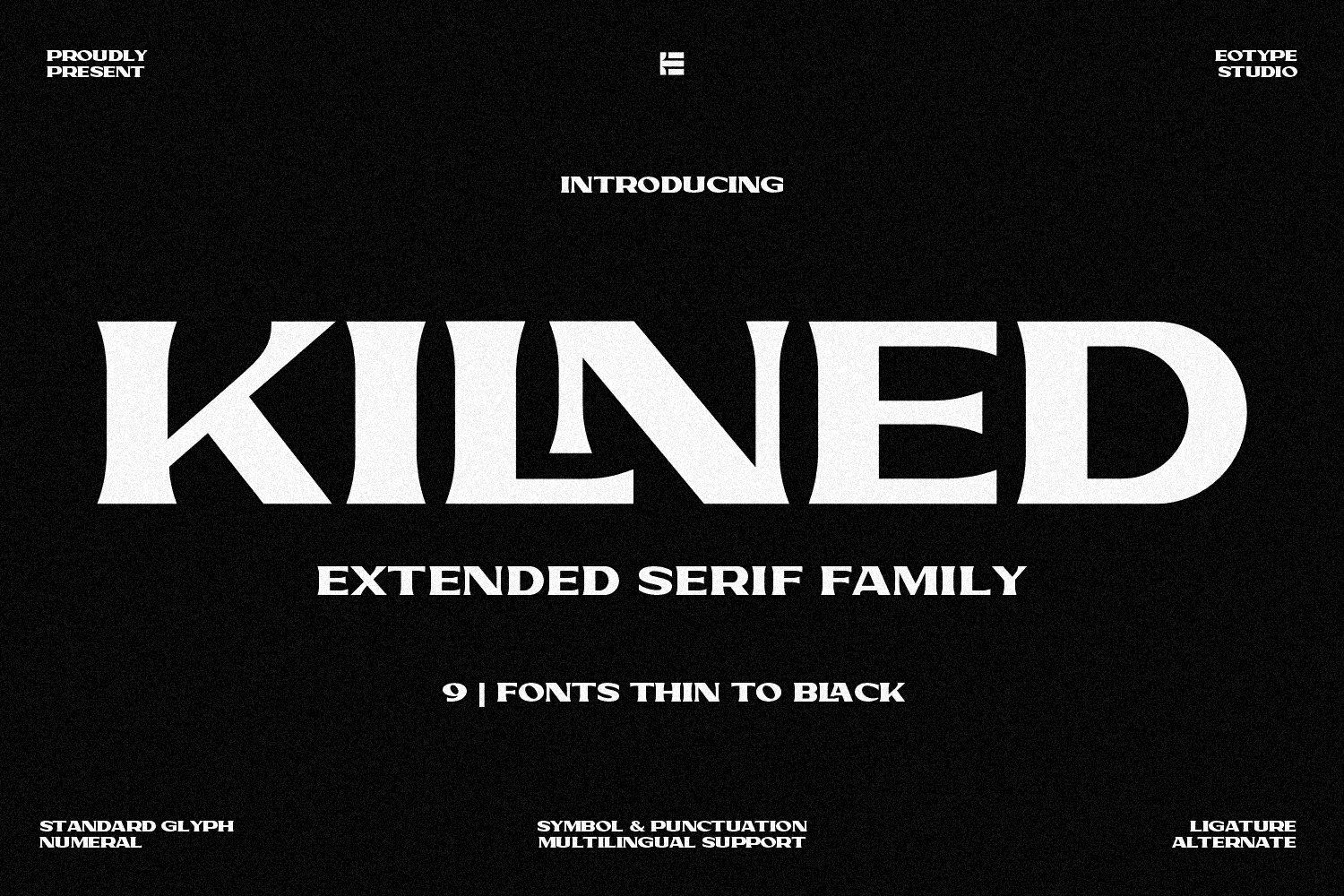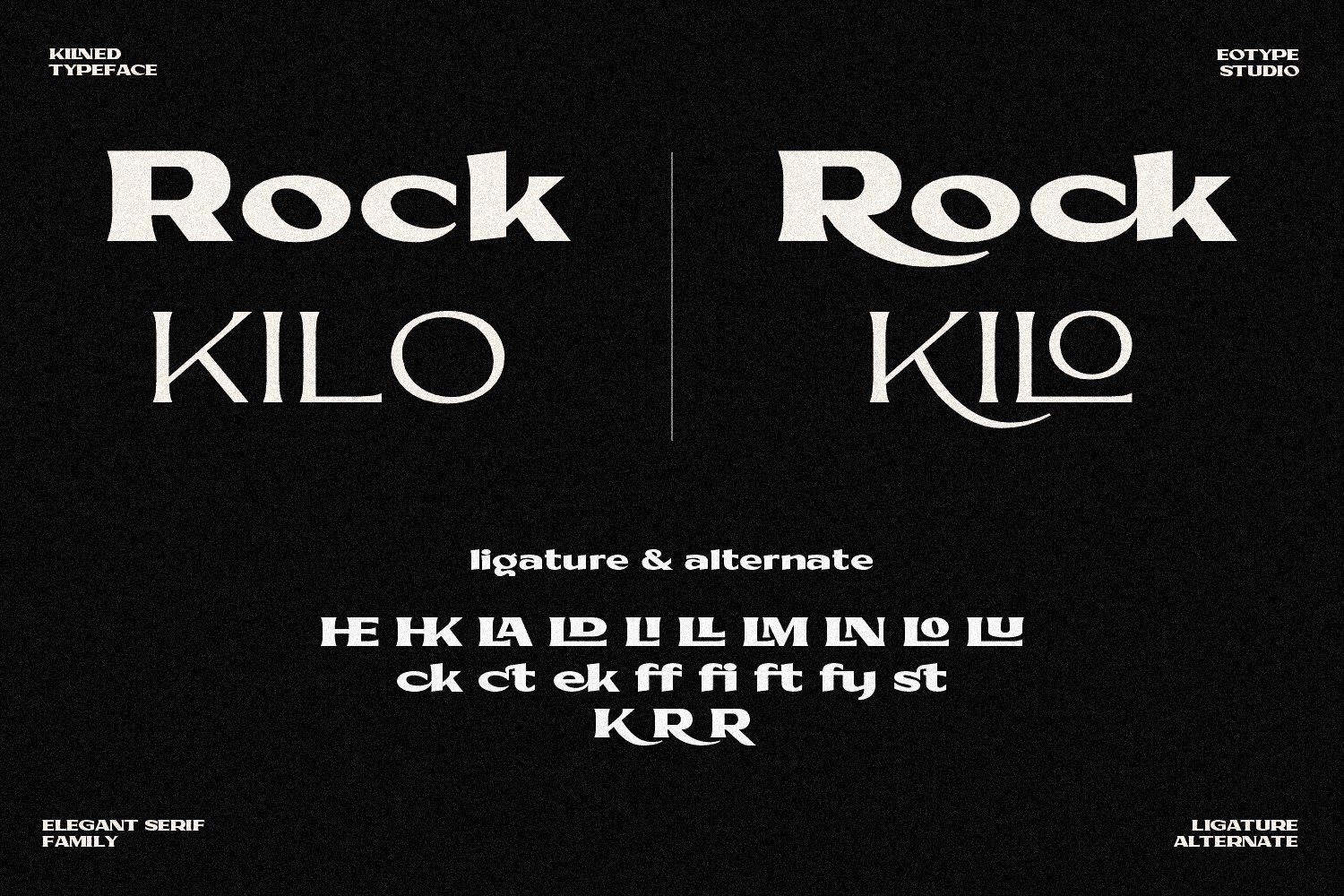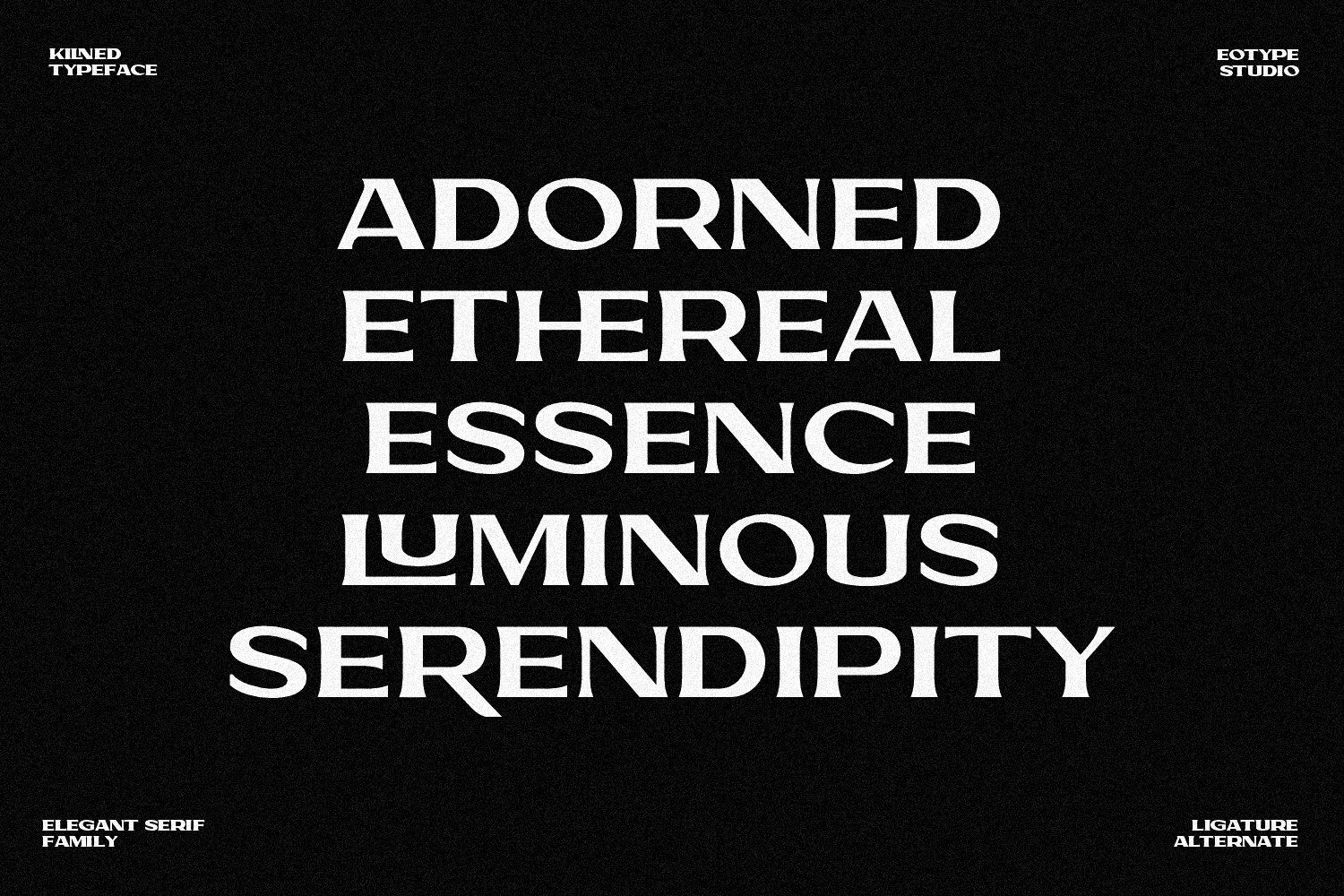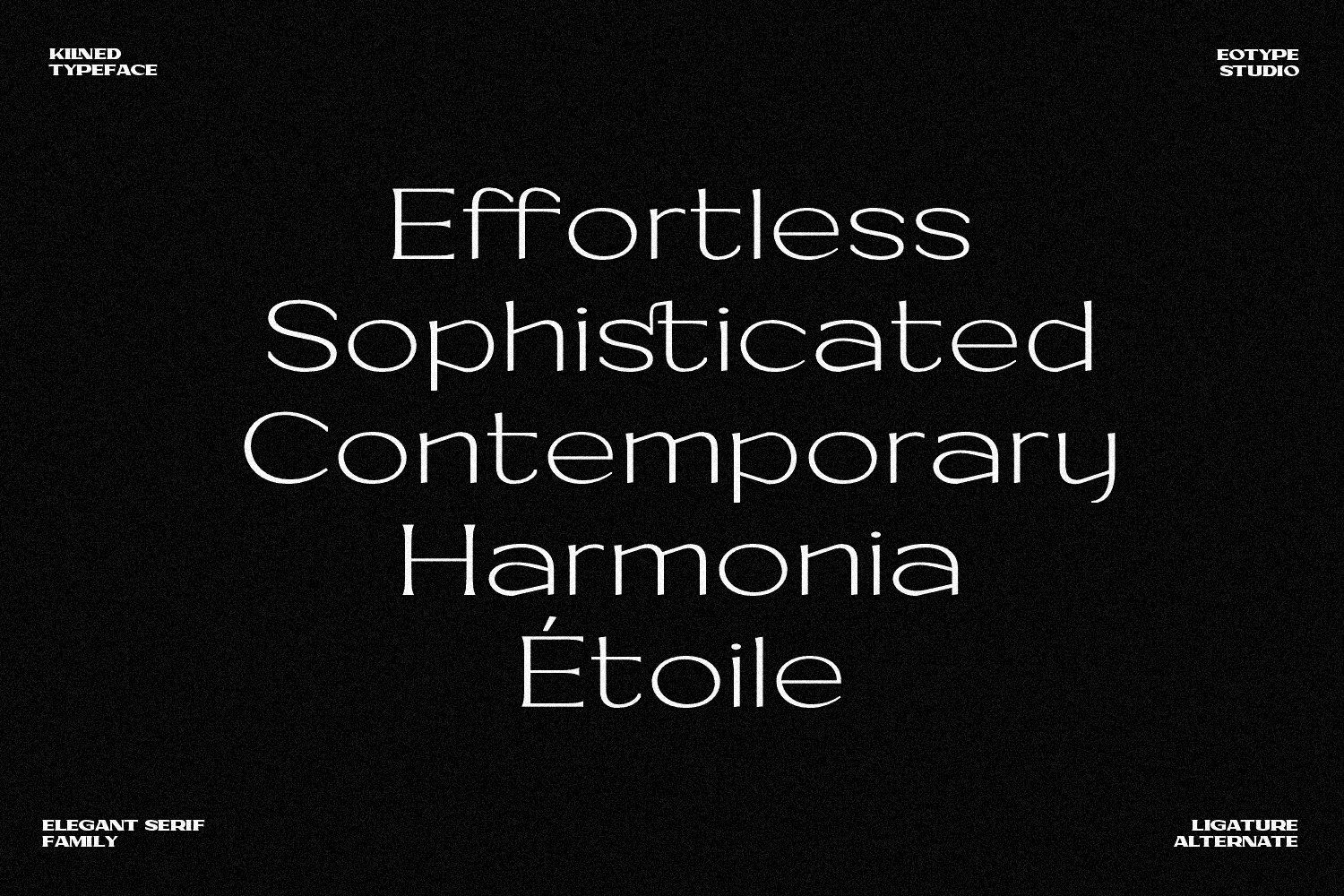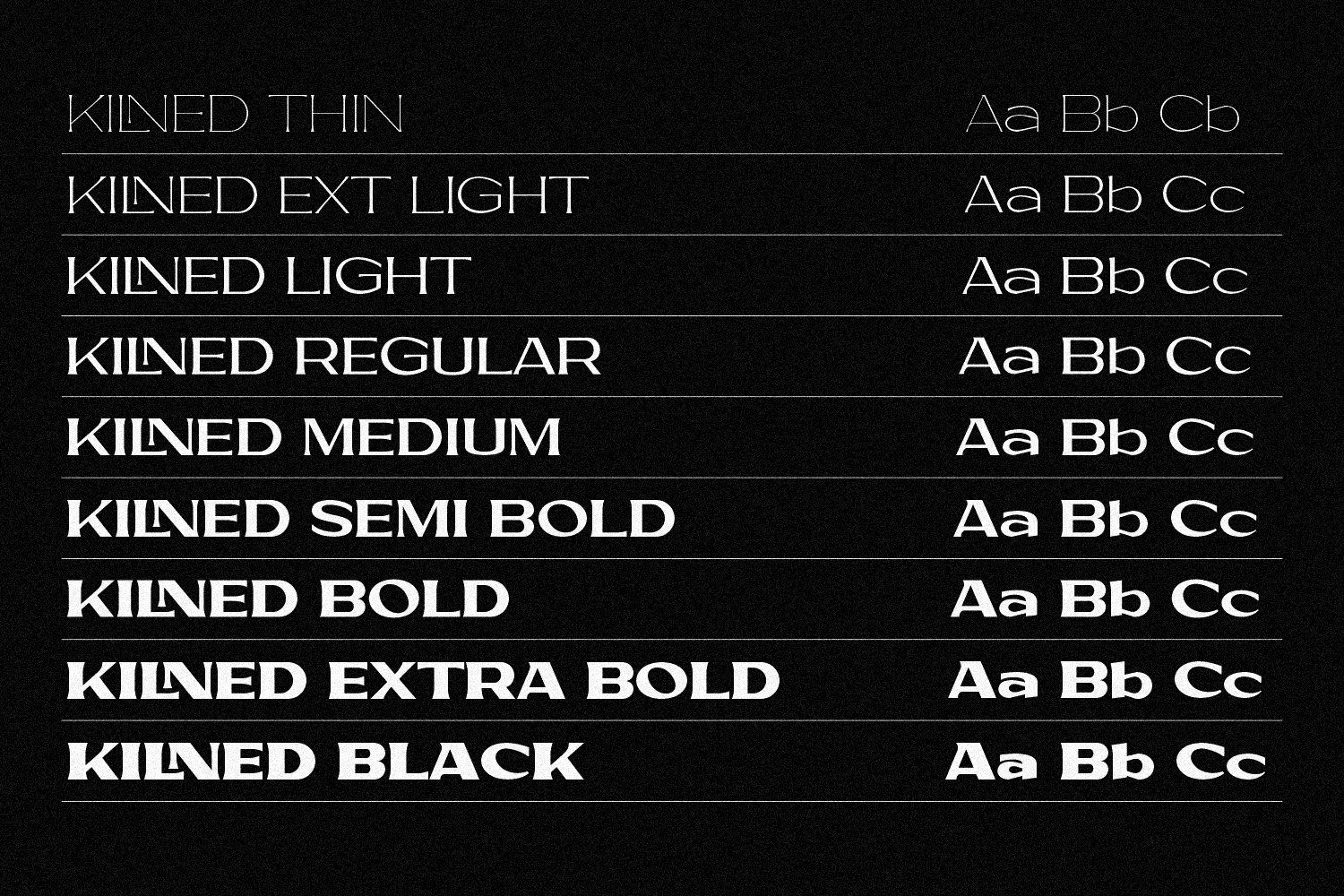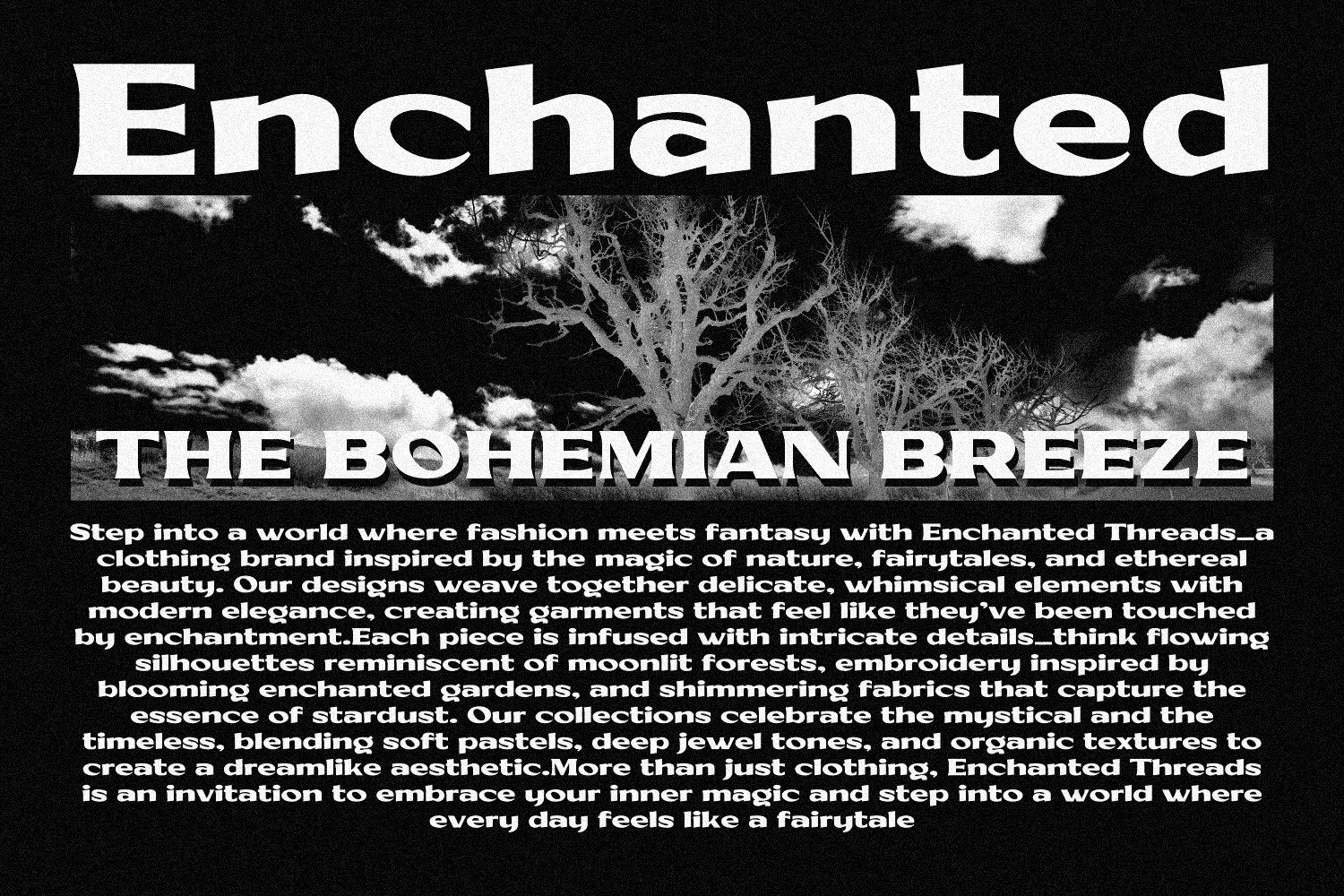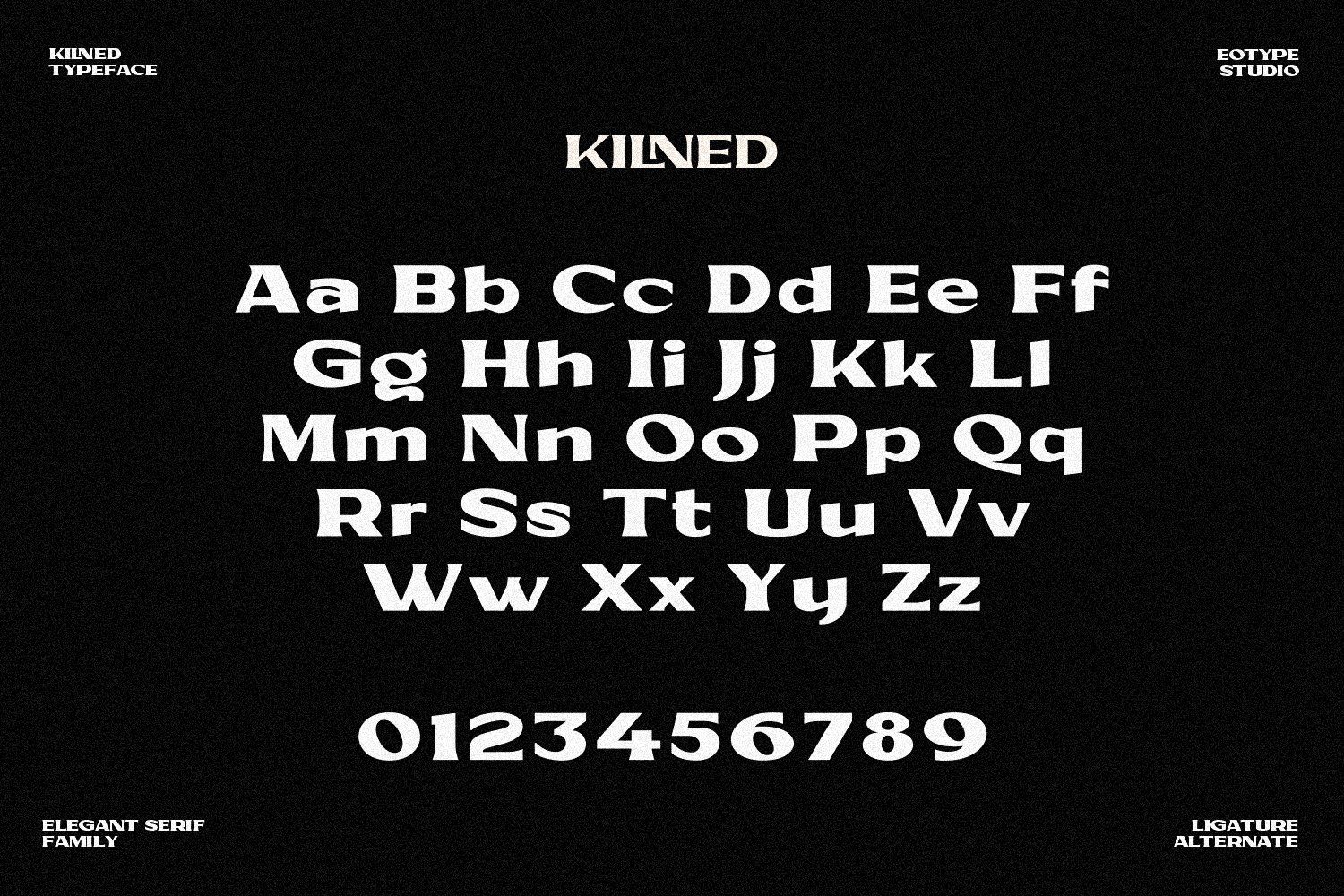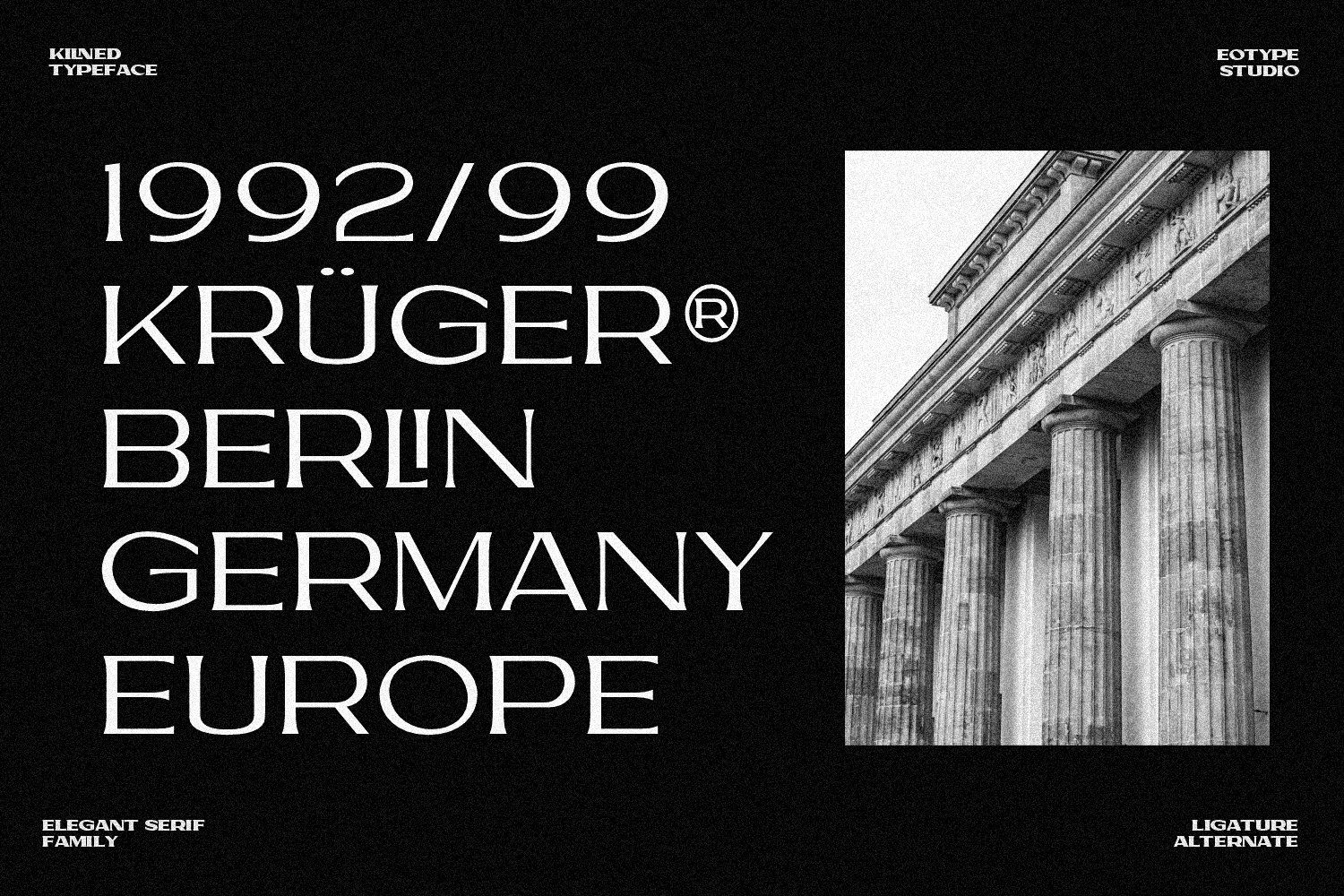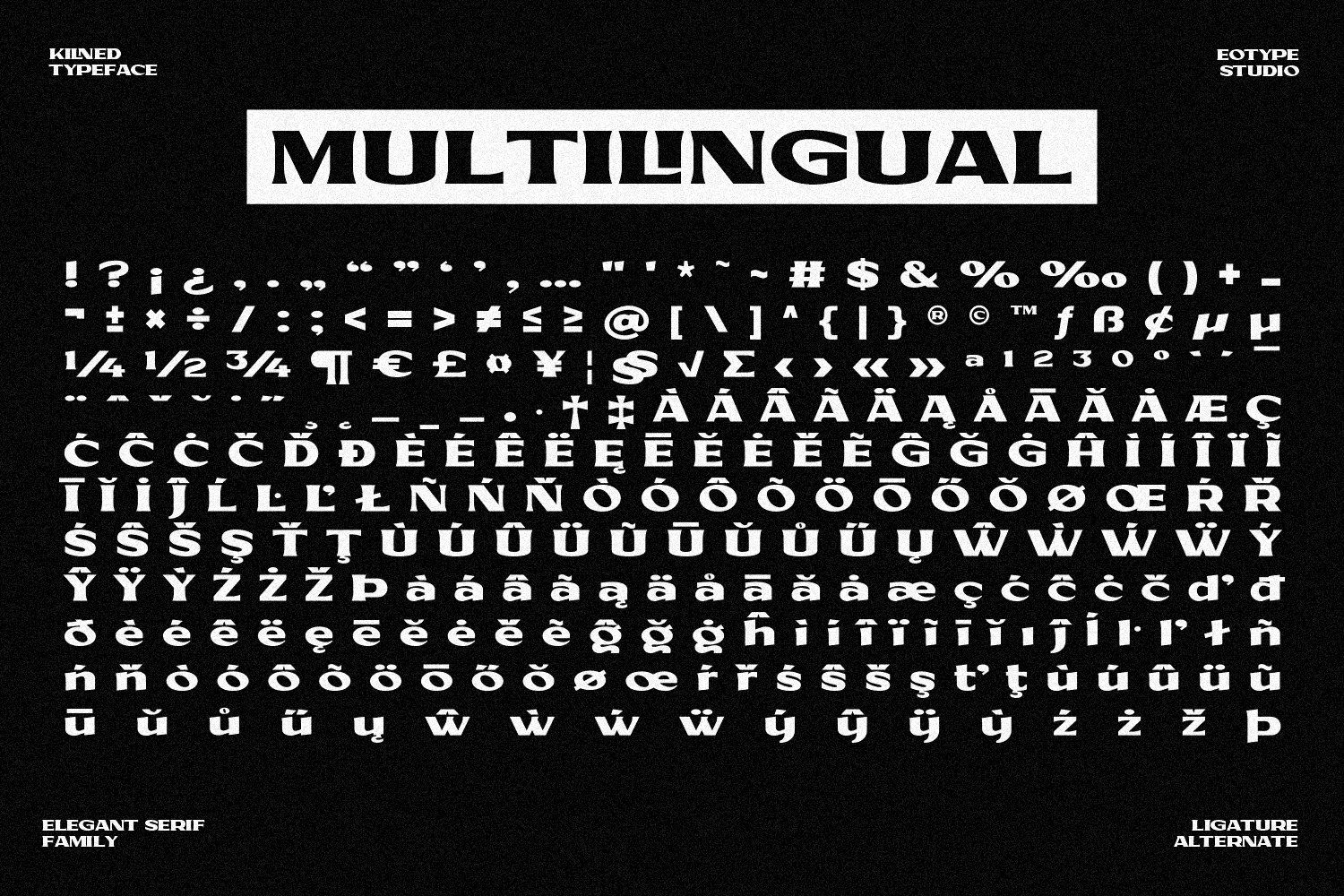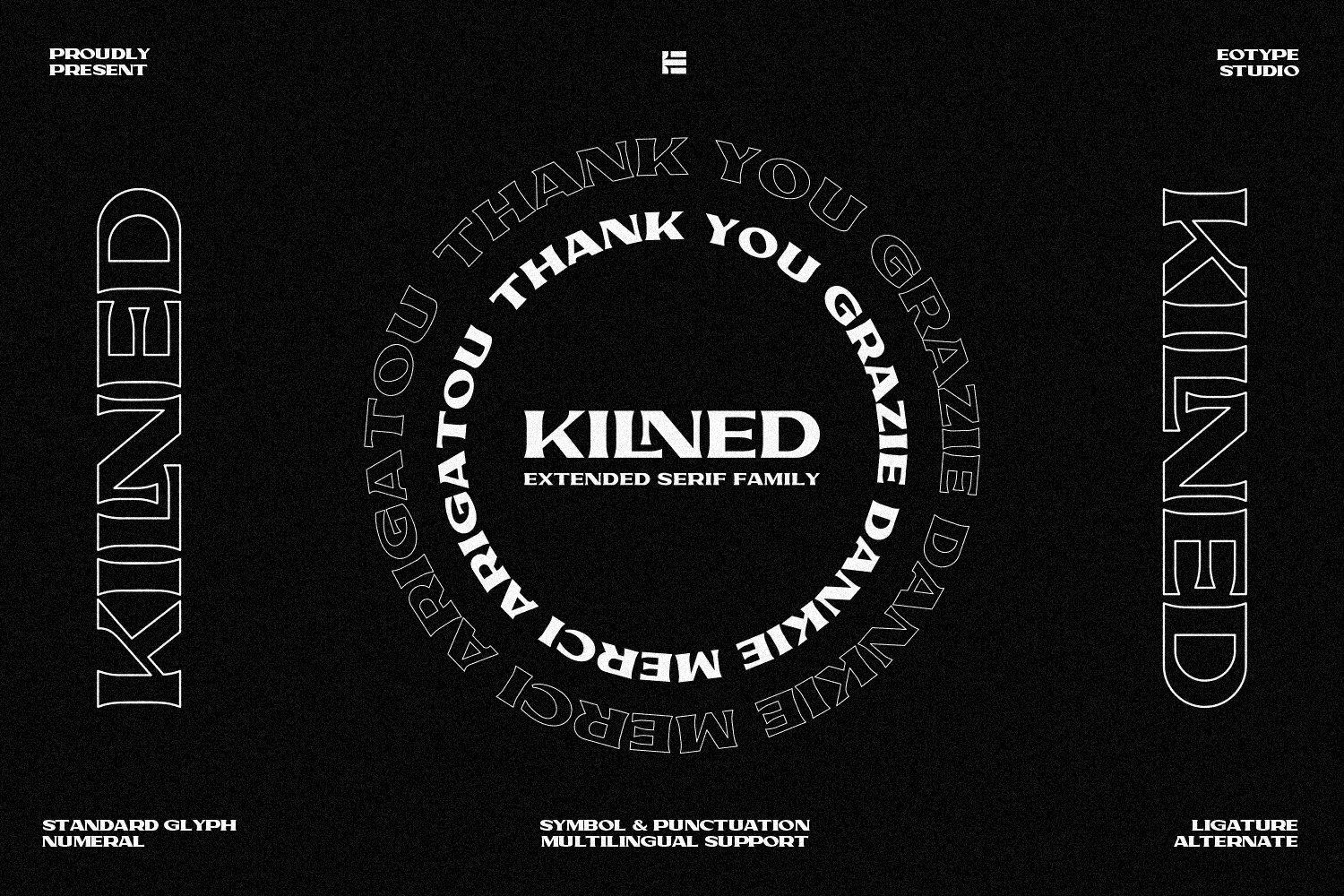
Kilned Serif font family a meticulously crafted collection of nine wide styles designed to infuse your creations with sophistication and charm. Perfect for brands, publications, and creatives seeking a timeless yet versatile typographic solution. Kilned Serif offers a harmonious blend of modern and classic aesthetics. The family includes 9 styles, each tailored to meet diverse design needs.
Kilned font features:
9 Weight
Standard Glyph
Stylistic Alternates & Ligatures
Symbol & Punctuation
Multiple Languages Supported.